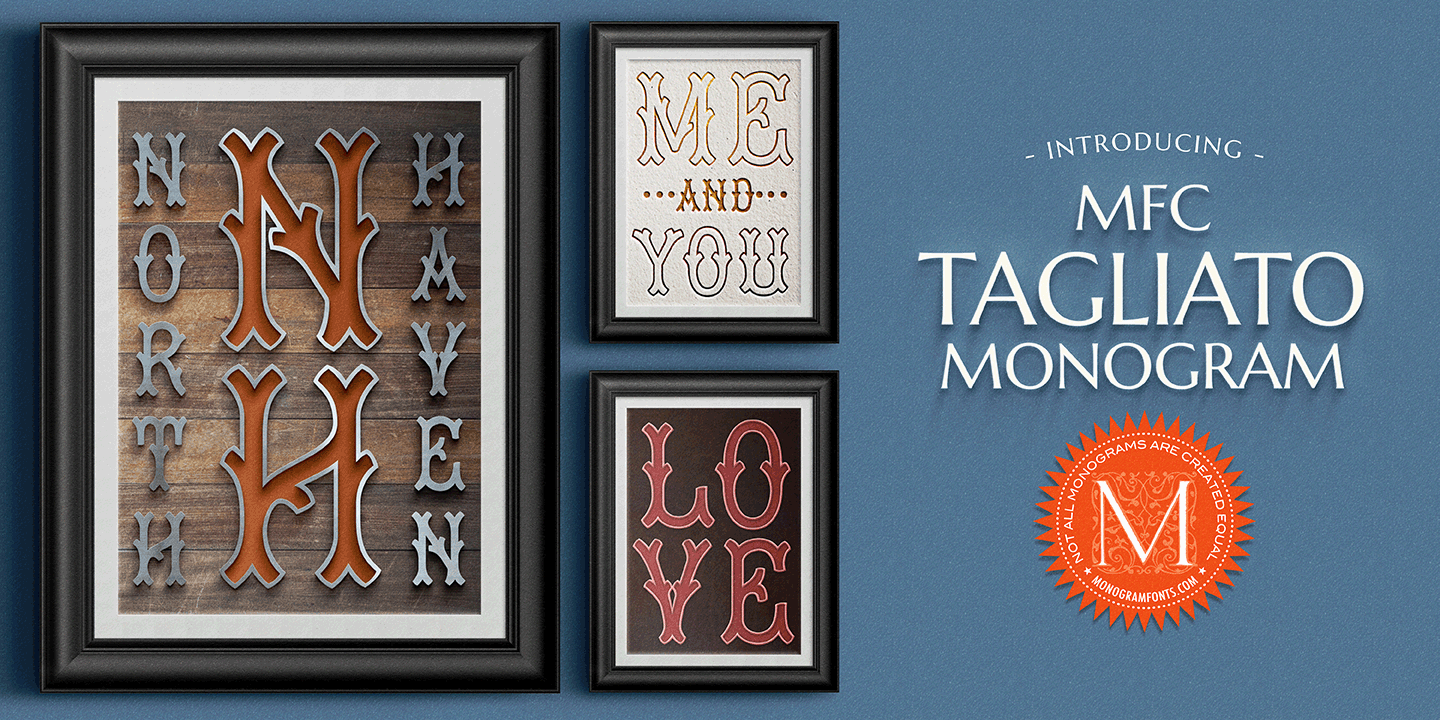
MFC Tagliato Monogram Font is perfect for luxury brand monograms, wedding invitations, personal stationery, boutique hotel logos, high-end jewelry branding, premium wine labels, exclusive club emblems, royal crests, elegant business cards, and any project requiring sophisticated monogram design with timeless aristocratic appeal.
What makes MFC Tagliato Monogram Font exciting is its exquisite craftsmanship and regal elegance that transforms simple initials into stunning works of art. The typeface features intricate Victorian-inspired flourishes and ornamental details that evoke the grandeur of classical European design traditions. Its sophisticated letterforms create instant prestige and exclusivity, making it the perfect choice for luxury brands and high-end services that want to communicate heritage, refinement, and uncompromising quality through their visual identity.
MFC Tagliato Monogram Font family includes complete uppercase alphabet with elaborate decorative elements, ornamental borders, flourishes, and connecting ligatures. The typeface features meticulously crafted details including vintage swashes, elegant curves, and traditional calligraphic embellishments that ensure each monogram appears hand-lettered by master craftsmen.
Whether you're creating exclusive member clubs branding, designing luxury product packaging, or developing prestigious award certificates, MFC Tagliato Monogram Font Free Download delivers unparalleled sophistication and authenticity. The font's classical heritage and ornate beauty make it particularly effective for establishing brand legacy and communicating exclusivity. Its versatile elegance works seamlessly across embossed stationery, engraved signage, and digital applications, ensuring your monograms maintain their distinguished appearance while creating lasting impressions that speak to tradition, quality, and refined taste.